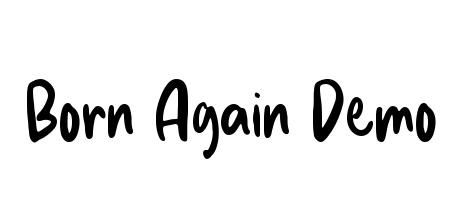
Born Again Demo
By FallenGraphic
Born Again Demo is a playful, hand-drawn script font brimming with youthful energy. Its slightly irregular strokes and bouncy letters evoke a sense of carefree optimism and nostalgic charm. Perfect for projects needing a touch of handmade authenticity, it whispers stories of rediscovery and new beginnings. Its friendly nature makes it adaptable to diverse designs.